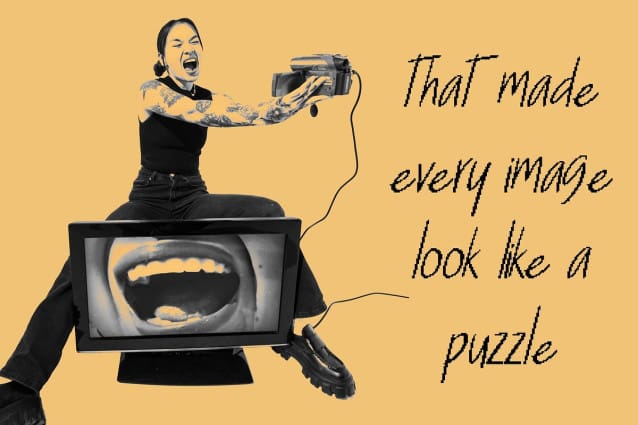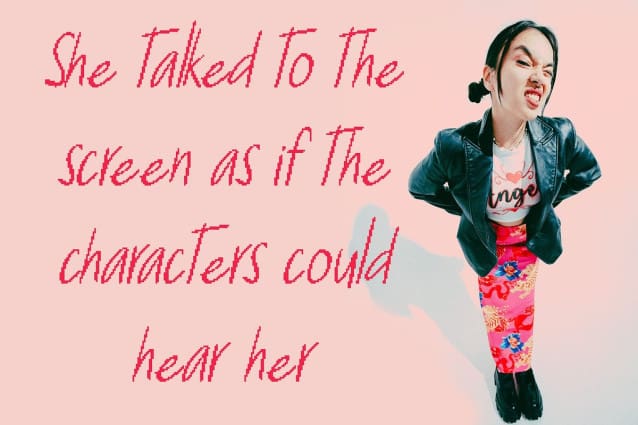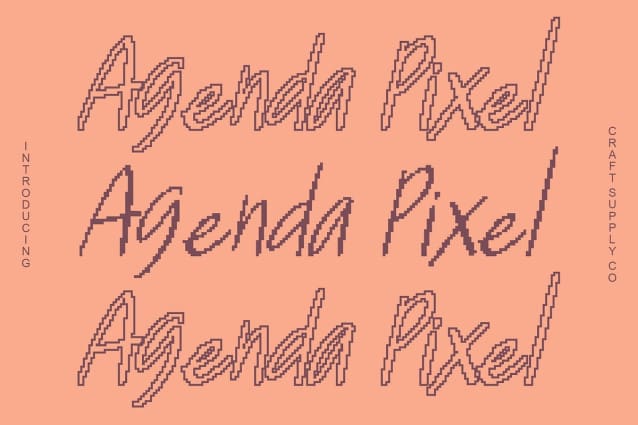
CS Agenda Pixel Font – Handwritten Sans Font with Pixel Finish: Where Handwriting Meets Futuristic Clarity.Casual Strokes with Modern Precision This font combines the warmth of handwritten strokes with the clarity of a sans serif, resulting in a typeface that feels both approachable and professional. Its casual rhythm creates a friendly tone, while its balanced proportions ensure it remains clean and legible across various design applications.
Pixel Finish for a Futuristic Edge What sets this font apart is its subtle pixel finish, which gives the font a modern, futuristic character. This detail transforms a simple handwritten sans into something fresh and forward-looking, making it ideal for projects that want to blend human warmth with digital energy.
Versatility for Creative Expression The unique blend of handwritten charm and pixel precision makes this font an adaptable font for multiple design styles. It can be playful and approachable in branding, sleek and modern in posters, or energetic and edgy in techno-inspired designs. Its adaptability makes it a reliable choice for designers seeking both character and functionality.
Perfect for Branding, Posters, and Techno Design Whether you’re building a modern brand identity, designing futuristic posters, or creating visuals with a techno vibe, this font delivers a bold, distinctive impression. Its hybrid design bridges the gap between organic handwriting and digital precision, ensuring your projects stand out with a unique balance of personality and modernity.